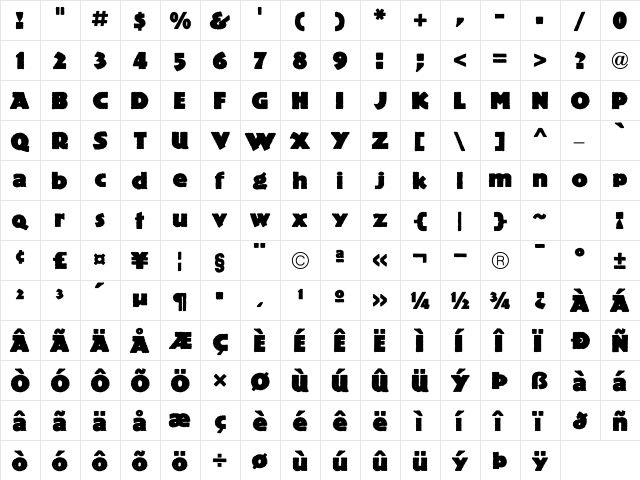
Publicity Gothic ICG Solid Regular
Design Context for Publicity Gothic ICG Solid Typeface
Publicity Gothic ICG Solid has the quiet confidence of well-executed sans-serif typography: versatile, unobtrusive, and dependable at any size.
Font Pairing: Works well alongside a characterful serif or display font that can carry the expressive load while Publicity Gothic ICG Solid handles the functional copy.
Pro Tip: Use Publicity Gothic ICG Solid for UI labels, navigation, and short-form body copy where clean legibility is the priority.